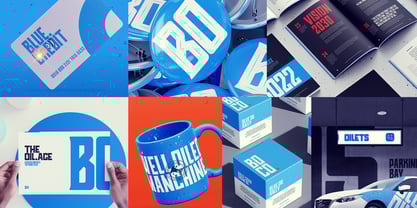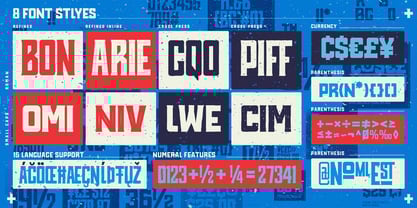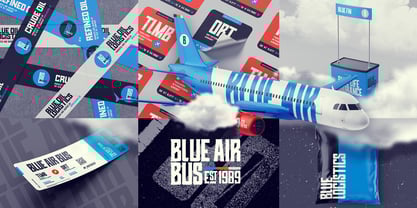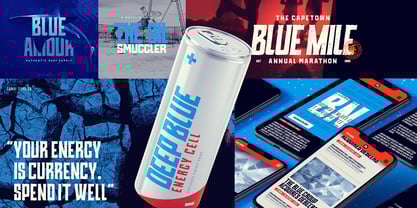
Blue Oil Serif
by Tondi Type Studio
The Blue Oil Serif Font Family was designed by Fhumulani Nemulodi and published by Tondi Type Studio. Blue Oil Serif contains 8 styles and family package options. More about this family
Blue Oil Co. is a versatile vintage-inspired serif font family that blends the clean lines of geometric sans-serif typography with a classic serif finish. Featuring rectangular letterforms with softly rounded corners and subtle, standout serifs, this typeface delivers a timeless aesthetic with a modern twist.
The Blue Oil Co. font family offers a diverse range of styles, making it perfect for creating both polished and distressed looks in your designs.
This vintage serif font is an excellent choice for retail branding, wordmark design, social media graphics, apparel, brand identity, and UI design, among other applications. Whether you're aiming for sophistication or a rugged edge, Blue Oil Co. adapts effortlessly to your creative vision.
Explore the 8 Distinct Styles of Blue Oil Co.:
Blue Oil Co. Refined
• Refined Roman – Sleek and elegant serif design
• Refined SmallCaps – Compact and refined typography
• Refined Inline – Bold with a stylish inline accent
• Refined Inline SmallCaps – Subtle yet striking small capitals
Blue Oil Co. Crude
• Crude Roman – Raw, vintage serif charm
• Crude SmallCaps – Gritty and compact lettering
• Crude Roman Press – Weathered, distressed texture
• Crude SmallCaps Press – Bold, grungy small capitals